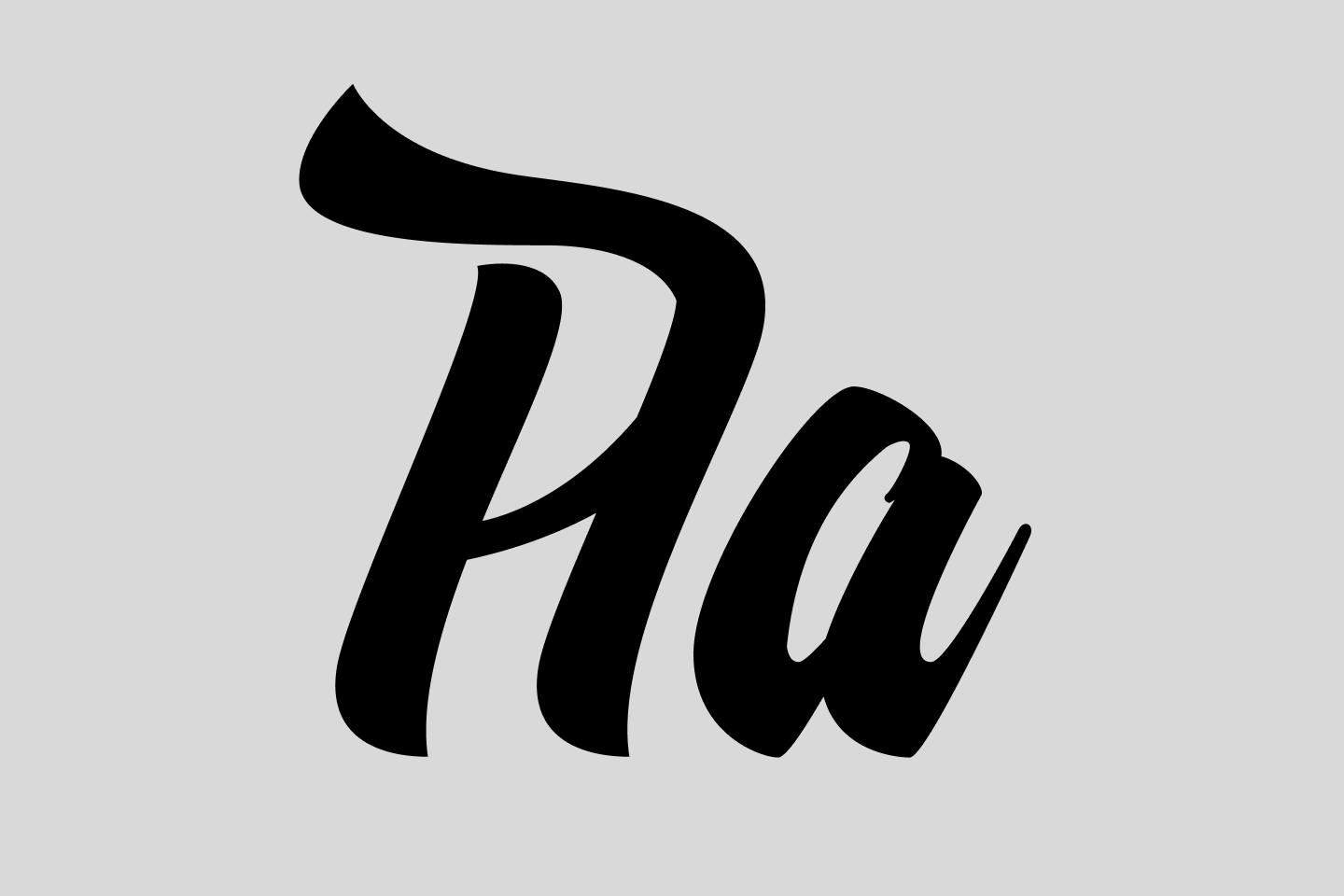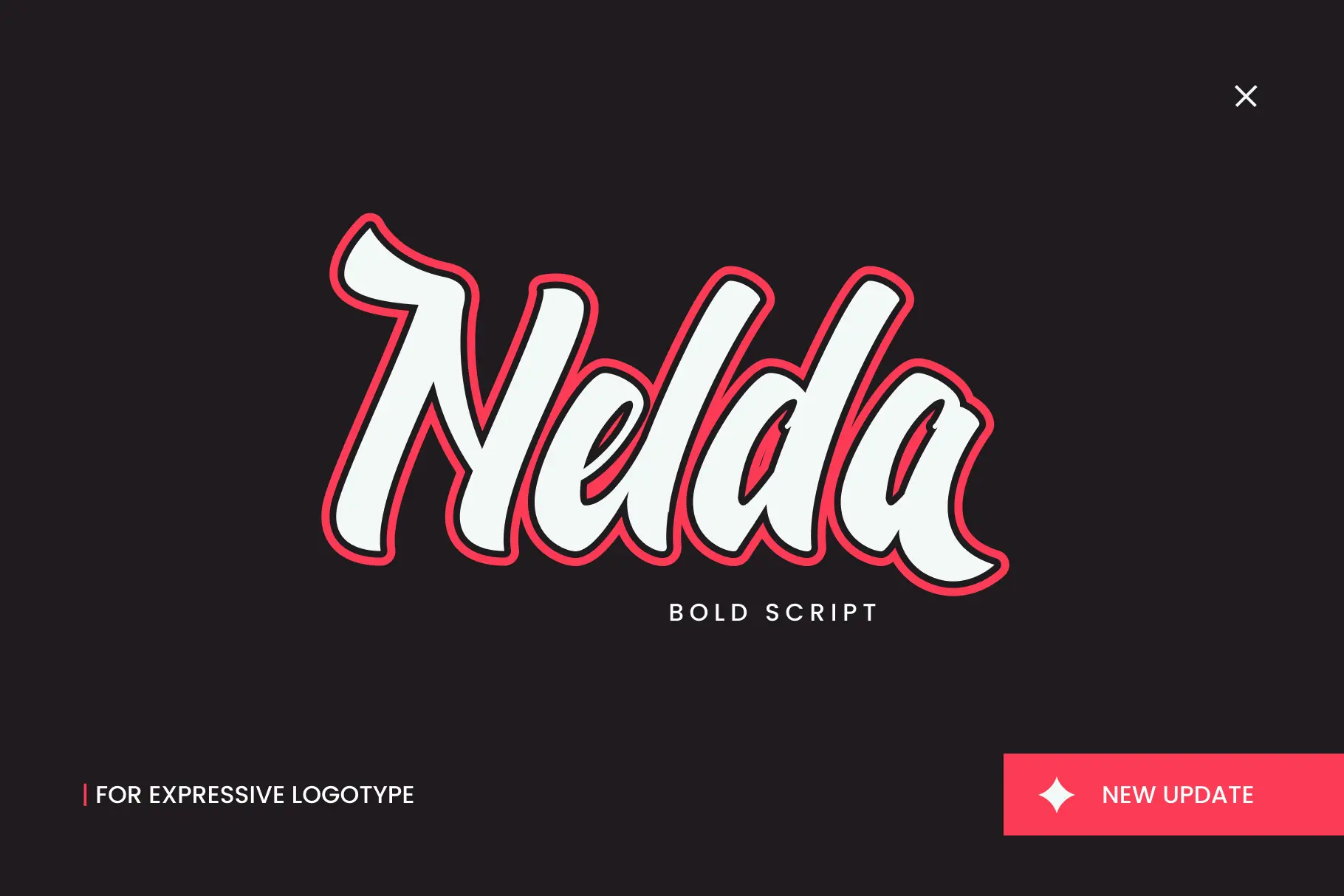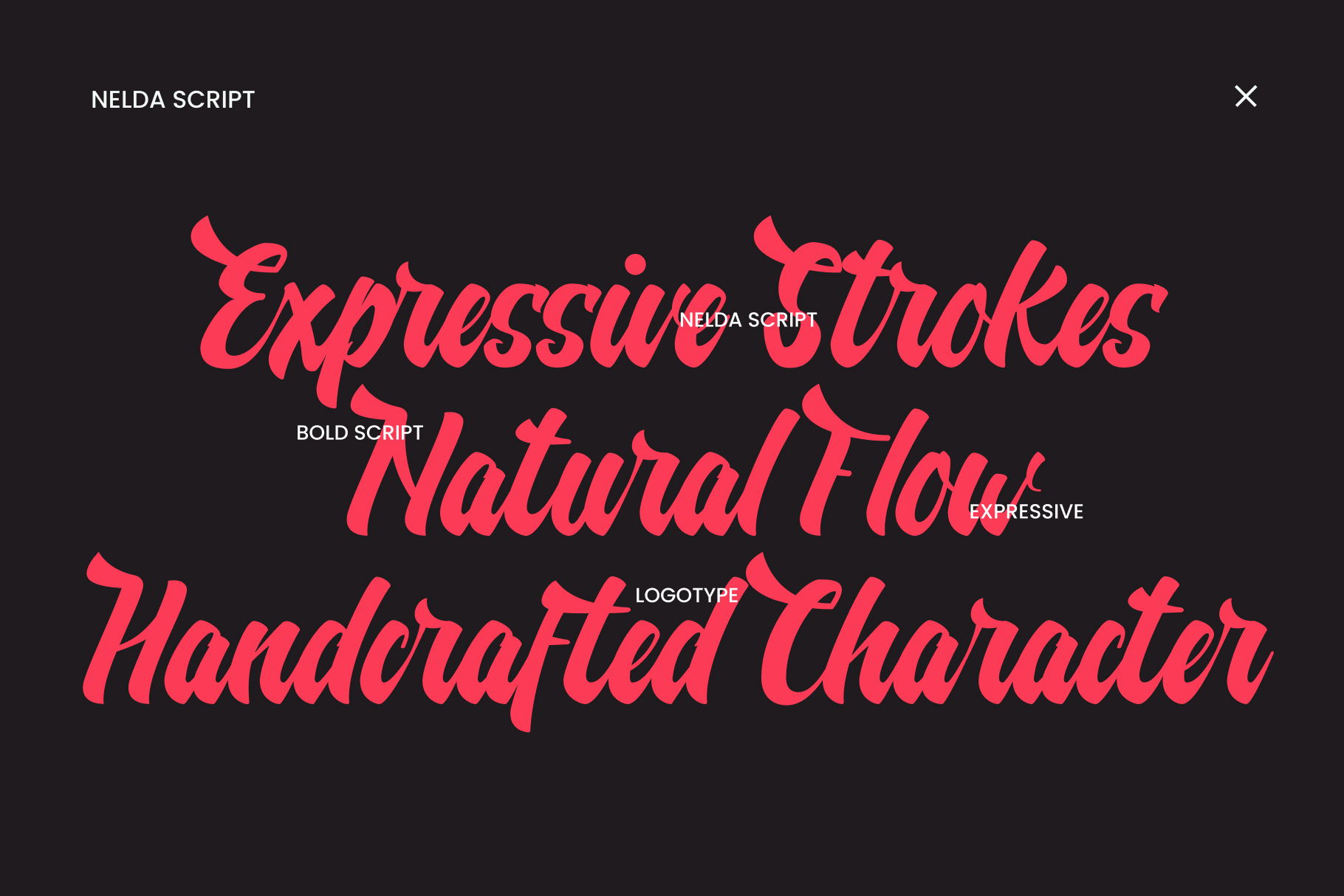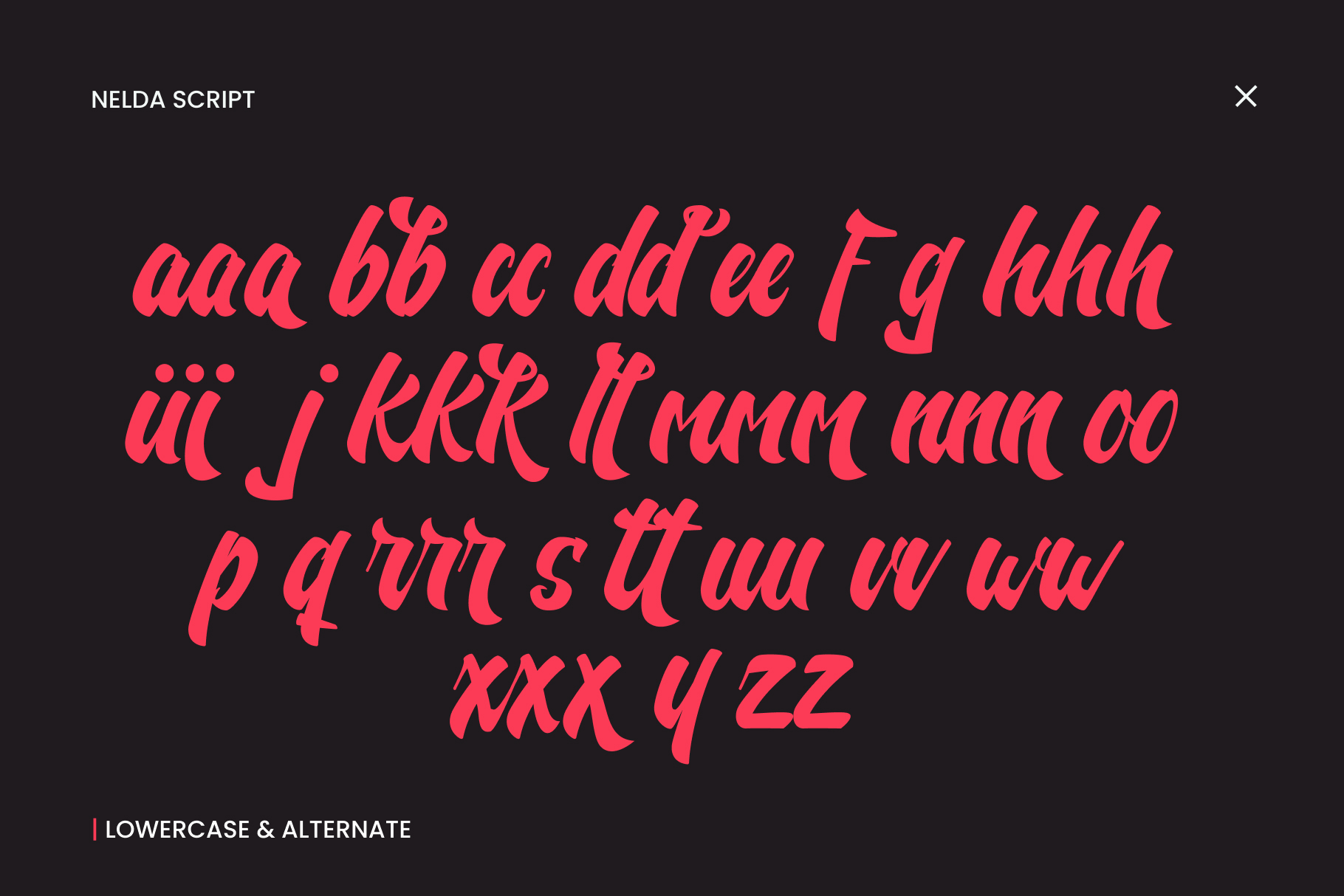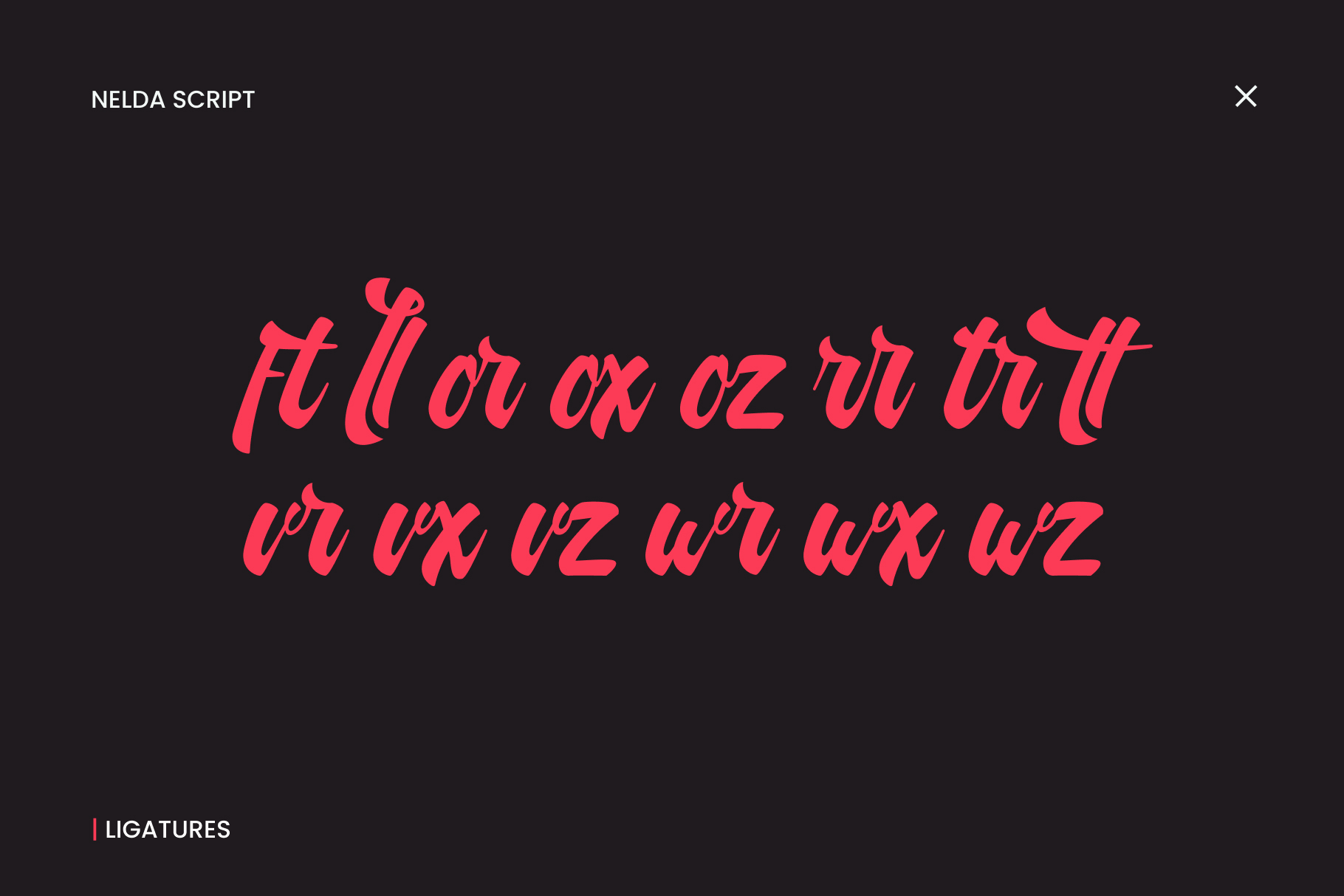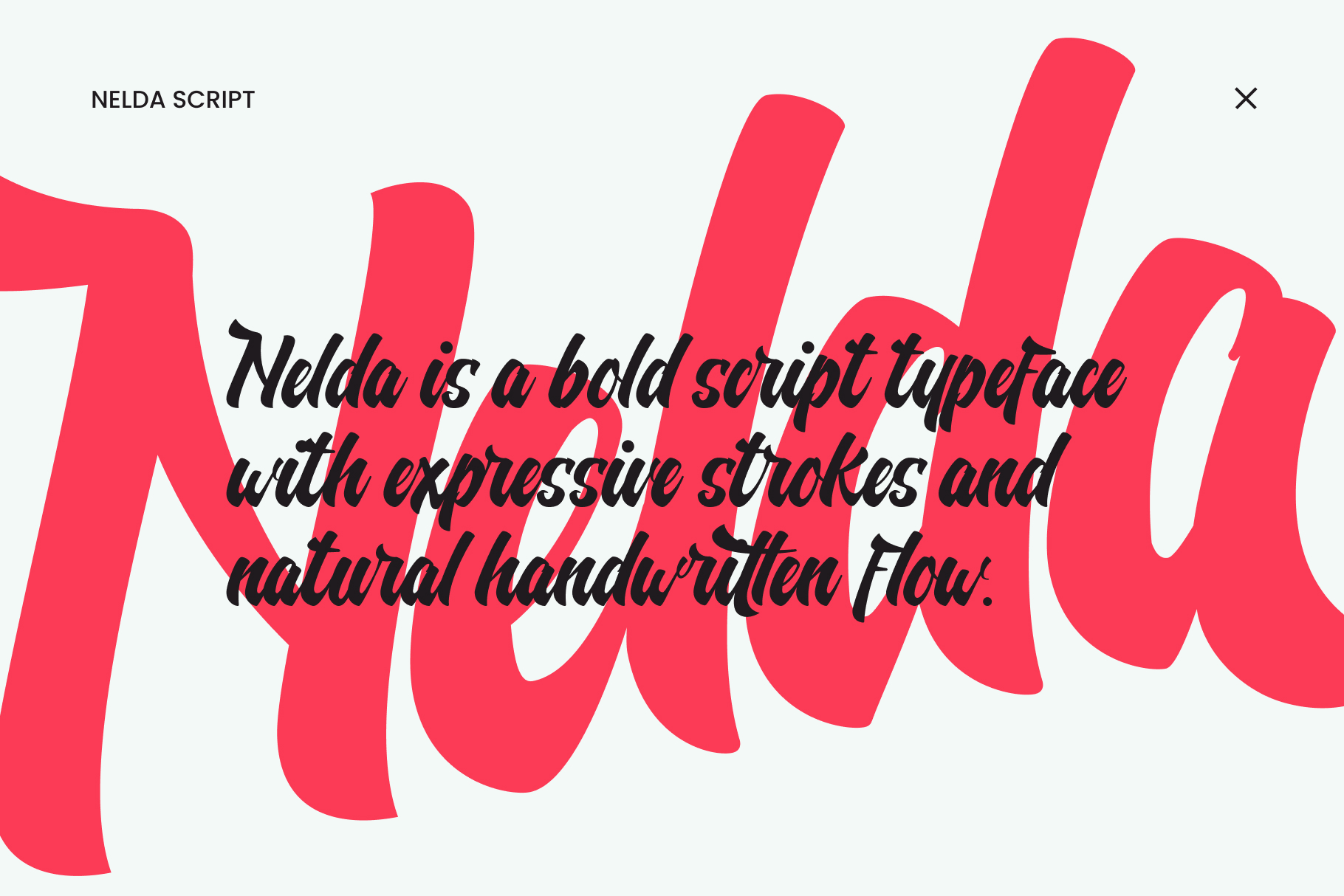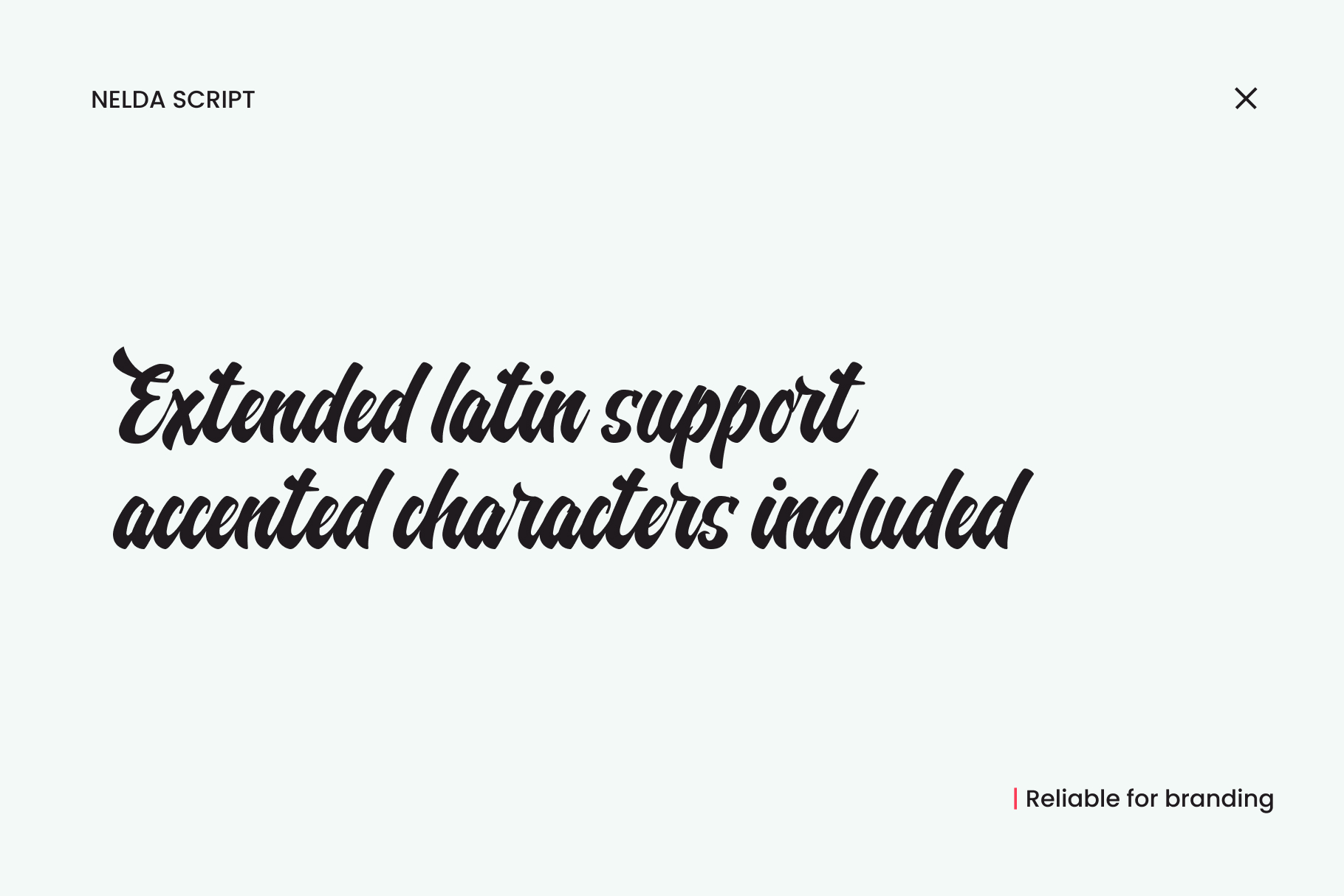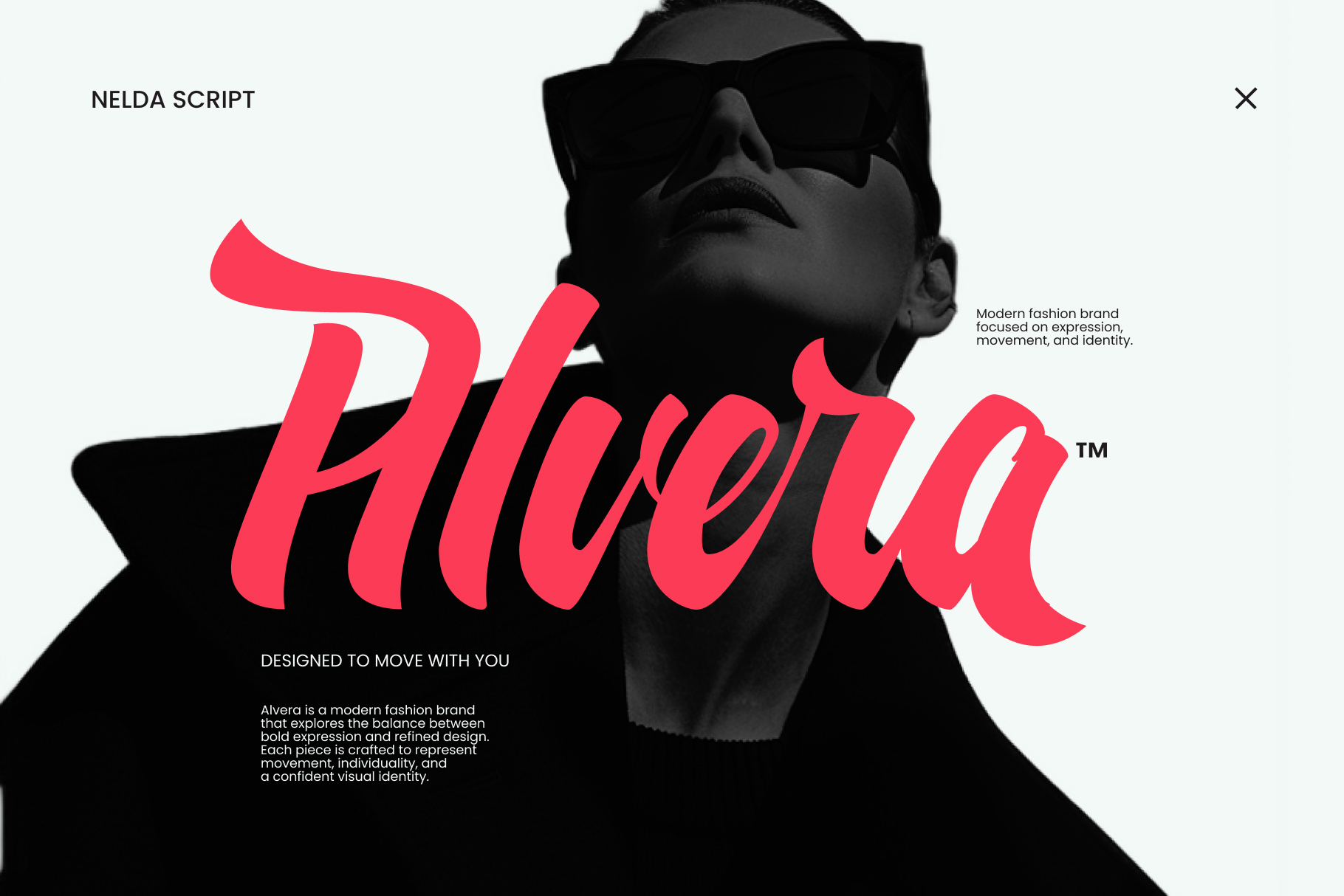
Nelda
Nelda is bold, playful, and modern. It is suitable for a logo, packaging, headline, poster, t-shirt, etc.
Nelda is a bold and playful script font crafted for eye-catching branding and creative design projects. Its modern handwritten style brings personality, charm, and strong visual impact to any layout.
• 311 Glyphs
• 131 Alternate Characters
• Ligatures & Contextual Alternates
• Stylistic Alternates & Stylistic Sets
• Elegant Swashes
Perfect for logos, branding, packaging, posters, apparel, social media graphics, invitations, and headlines. Compatible with Adobe Illustrator, Adobe InDesign, Affinity Designer, CorelDRAW, and other OpenType-supported applications.
Nelda is a bold and playful script font crafted for eye-catching branding and creative design projects. Its modern handwritten style brings personality, charm, and strong visual impact to any layout.
• 311 Glyphs
• 131 Alternate Characters
• Ligatures & Contextual Alternates
• Stylistic Alternates & Stylistic Sets
• Elegant Swashes
Perfect for logos, branding, packaging, posters, apparel, social media graphics, invitations, and headlines. Compatible with Adobe Illustrator, Adobe InDesign, Affinity Designer, CorelDRAW, and other OpenType-supported applications.